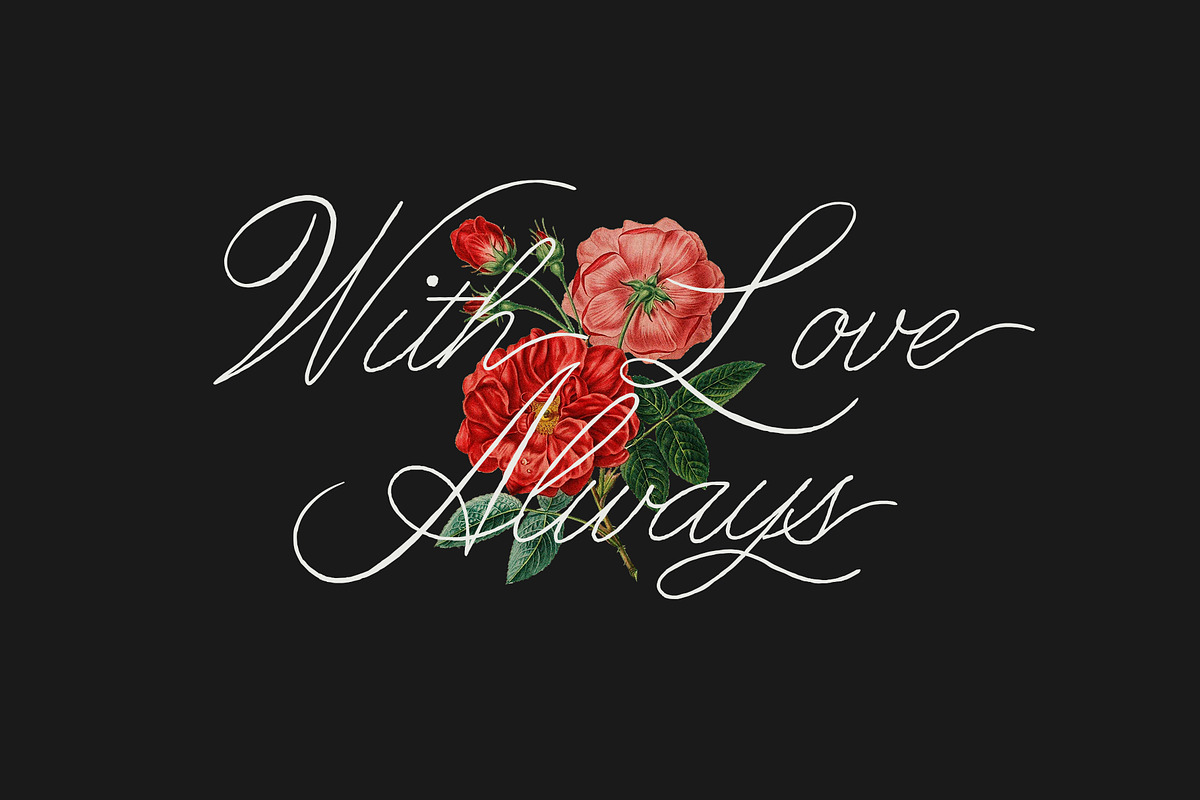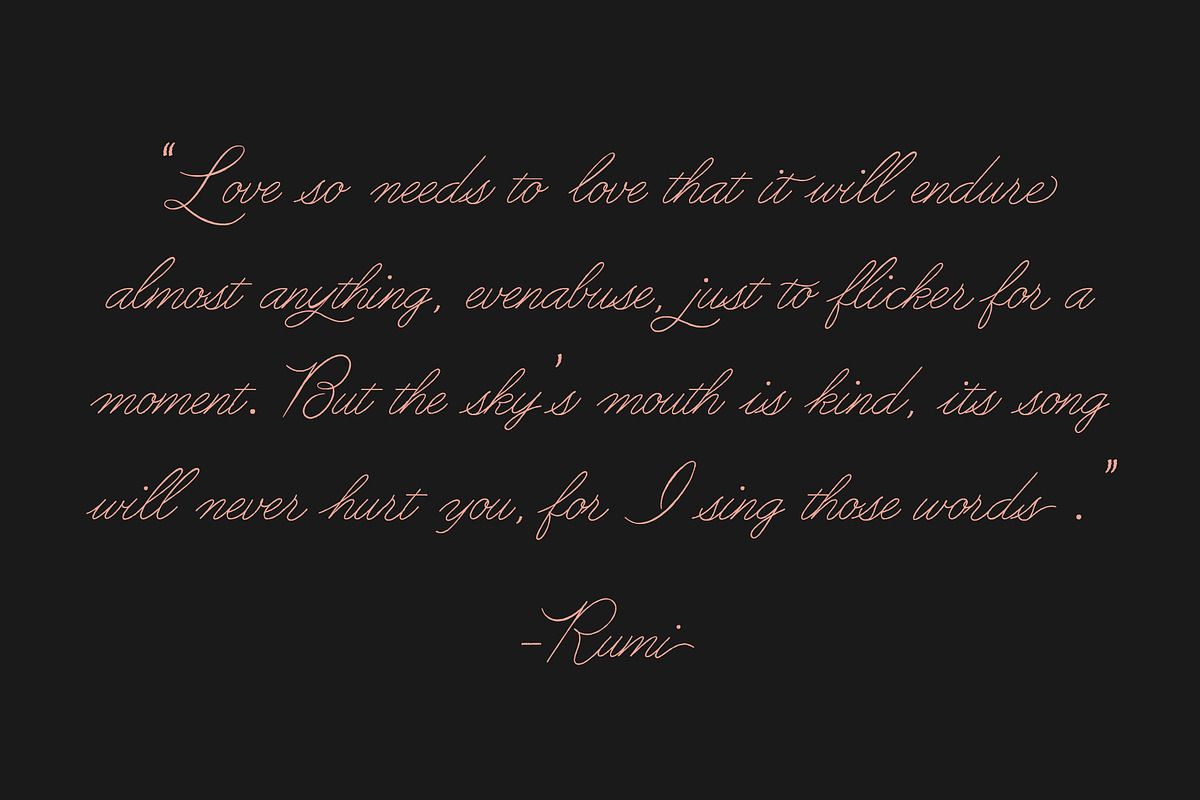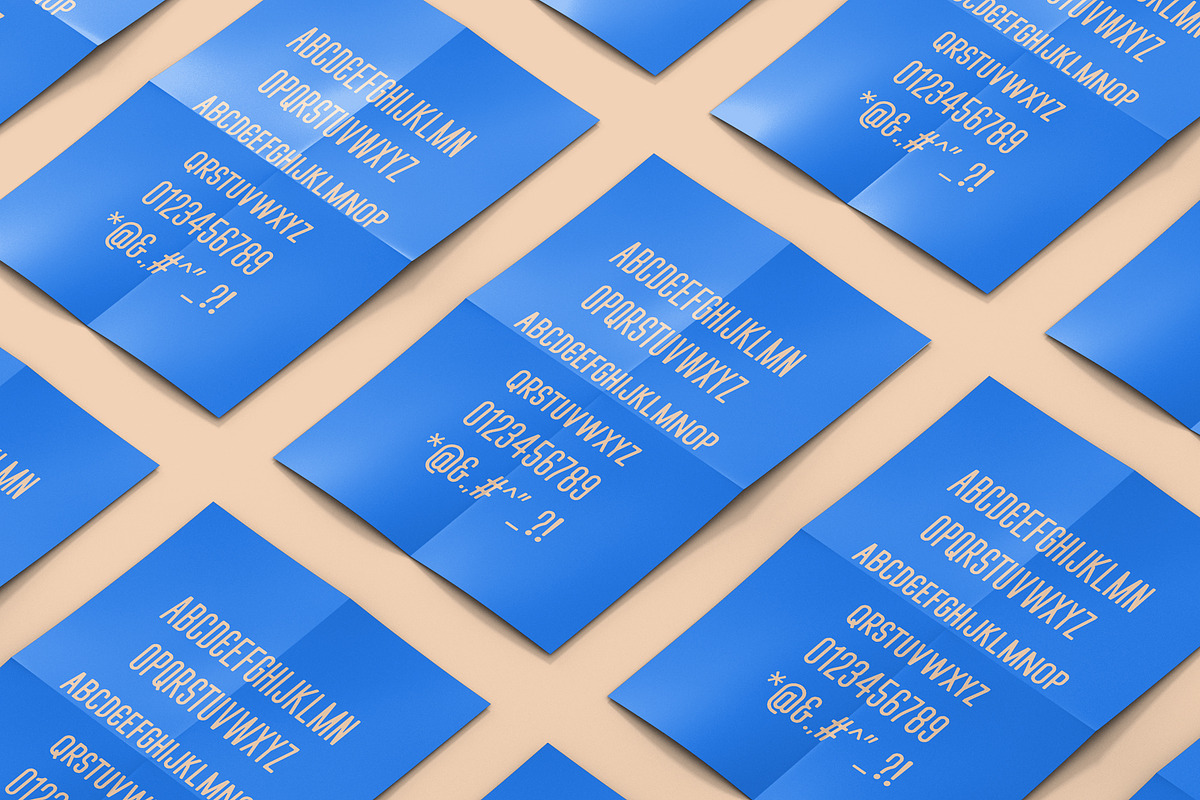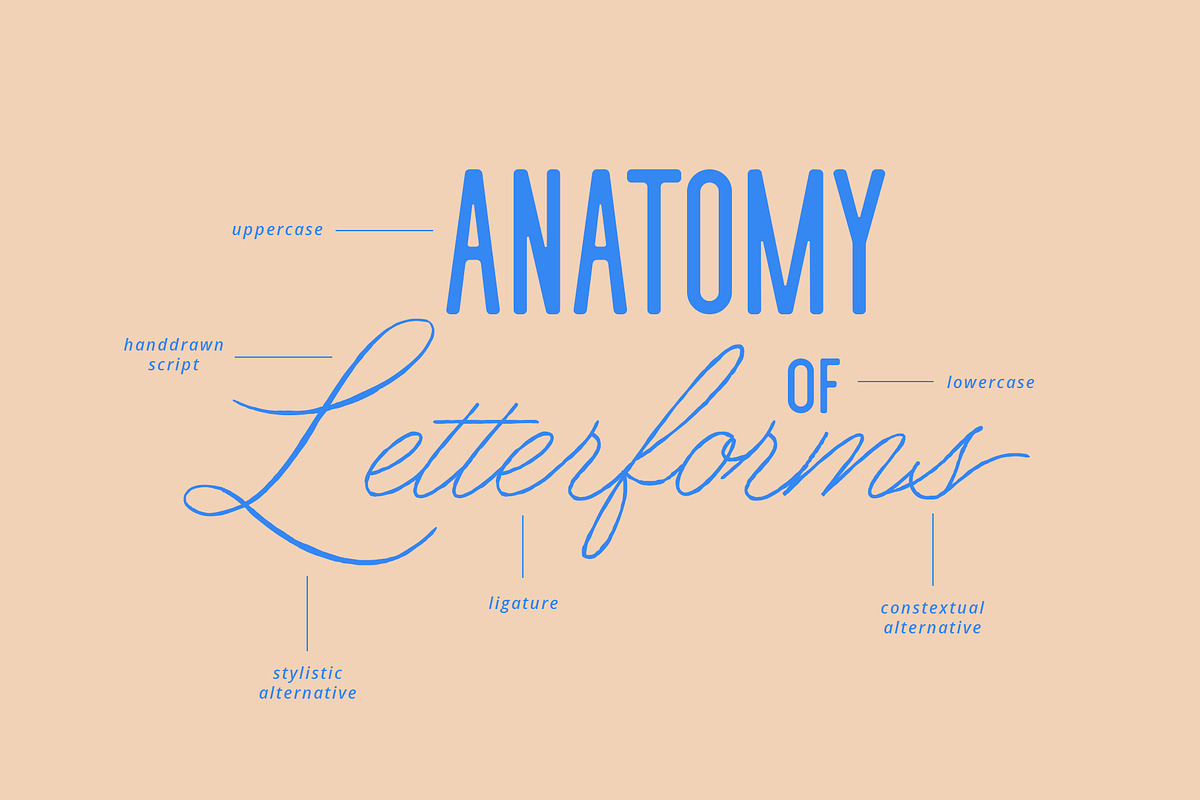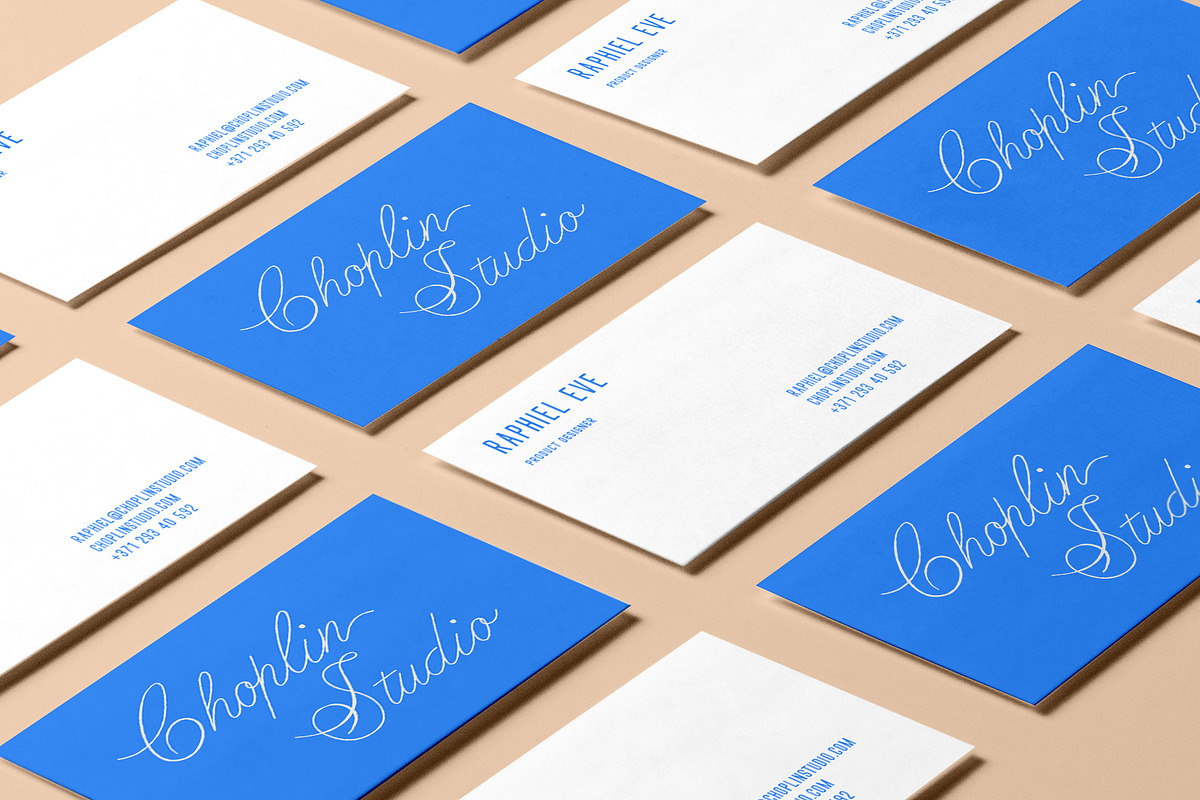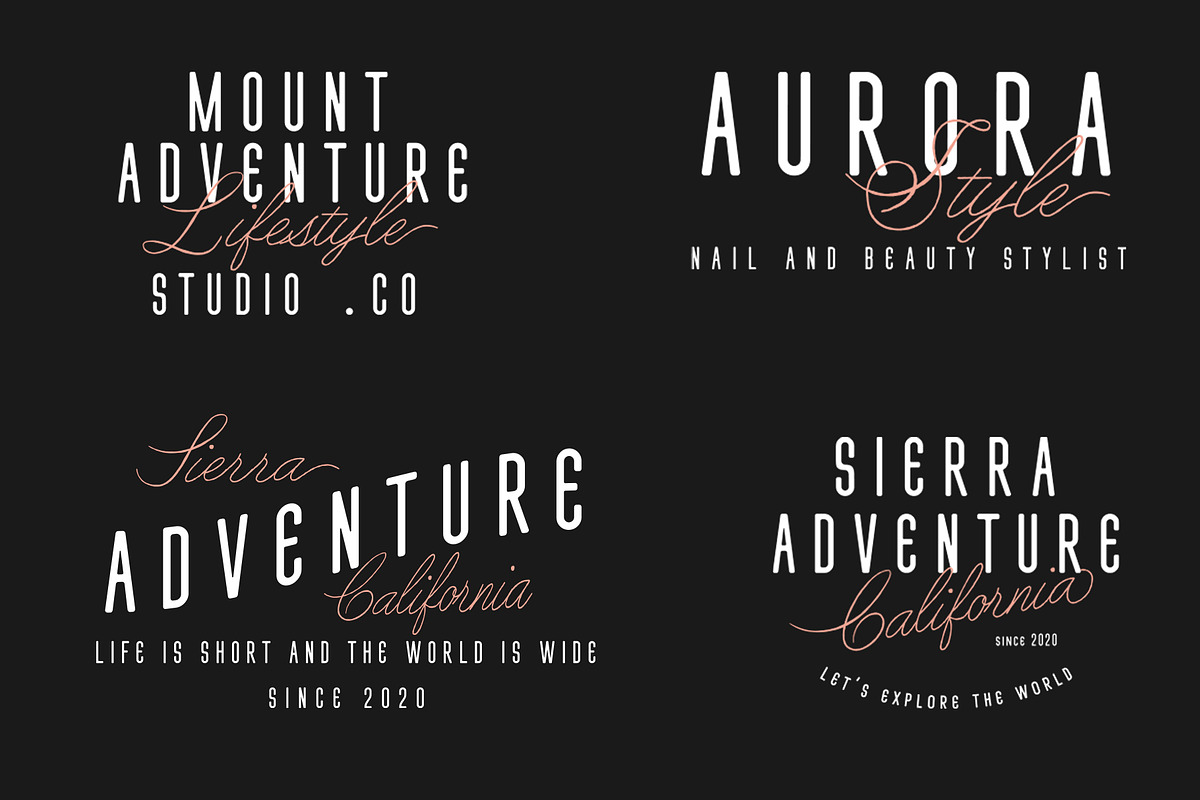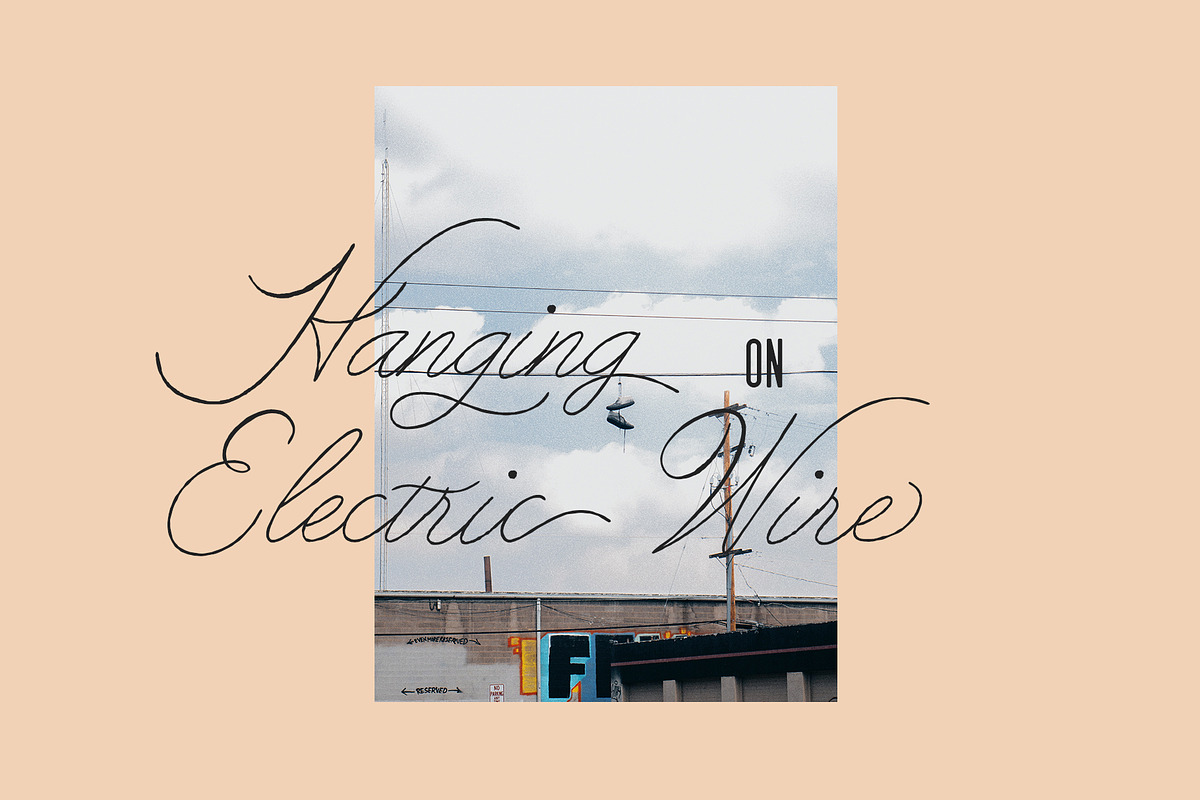
Point Dume font duo
Point Dume font duo is a combination of two types of fonts, consisting of handwritten style script fonts that look elegant, classy and sans serif rounded fonts that look vintage and clean. Point Dume font duo is perfect for a classy touch for your work.
This font is perfect for your branding, logo, wedding, product design, social media, advertising, etc. Point Dume font duo is flexible enough to add elegant and classic elements to your work or project.
Point Dume Script: To add an impression to look natural, the script font is equipped with a stylistic set of characters, ligature, and contextual characters.
Point Dume font duo by Emyself Design fits naturally into Branding, posters, packaging, typography.